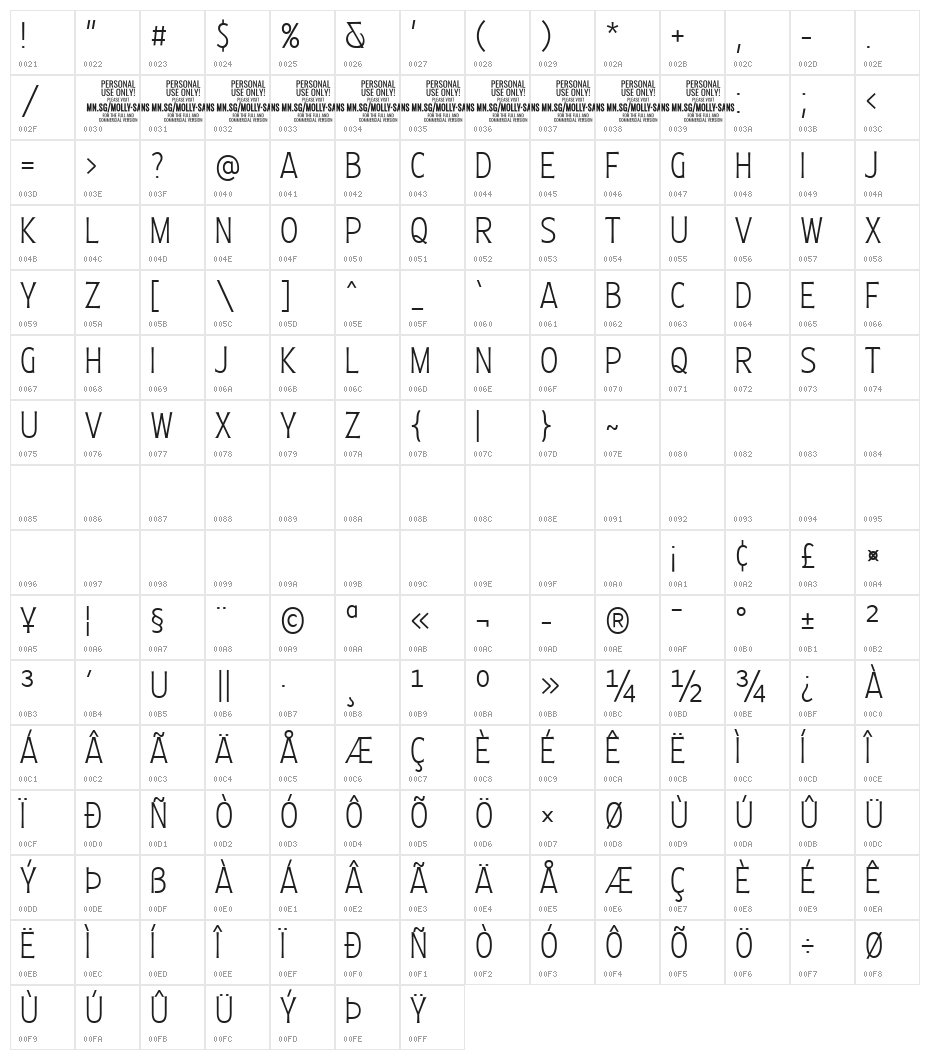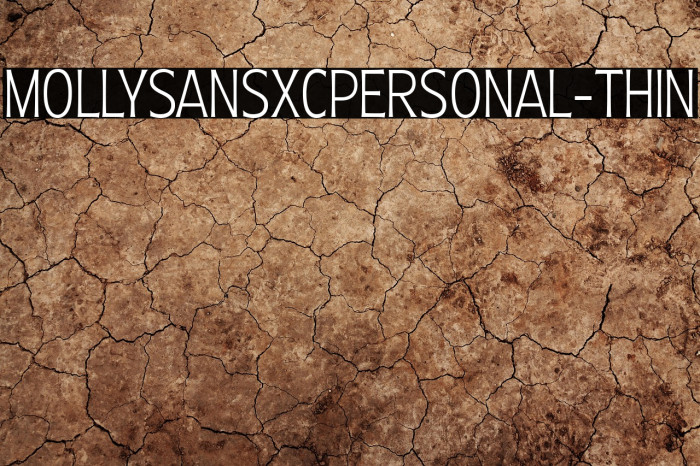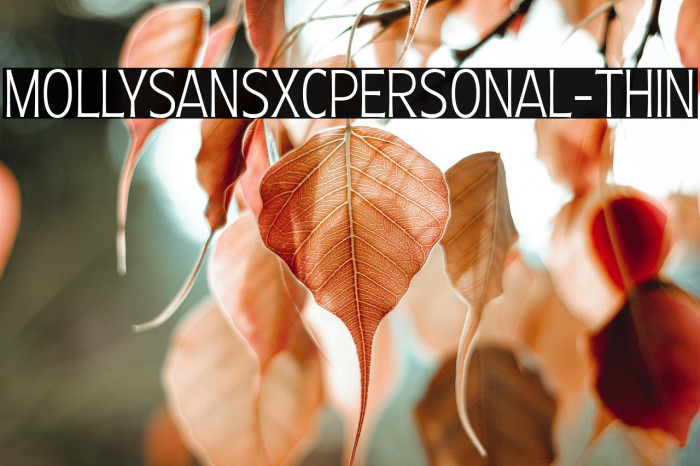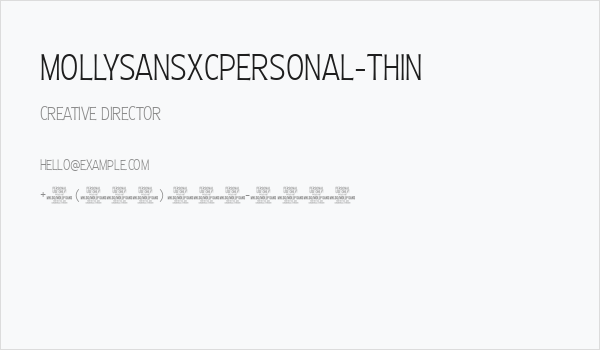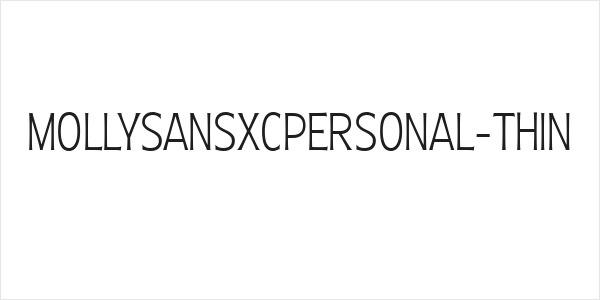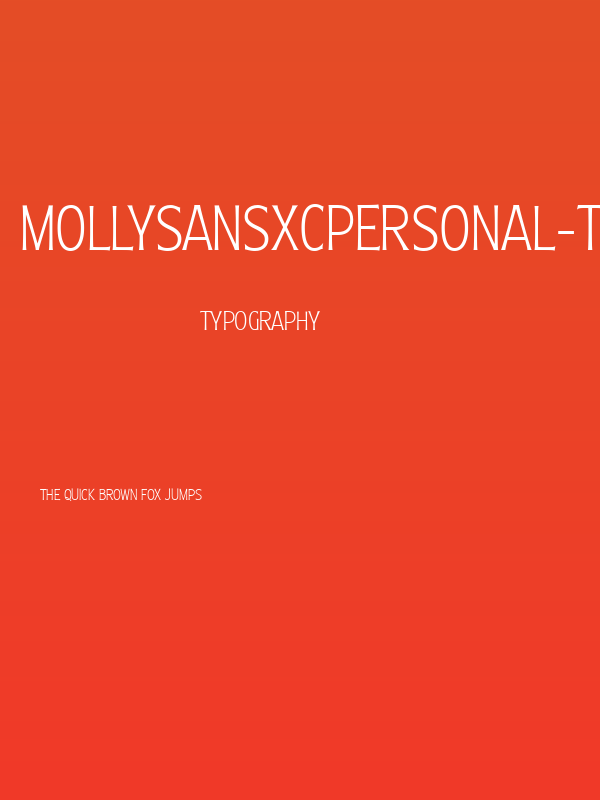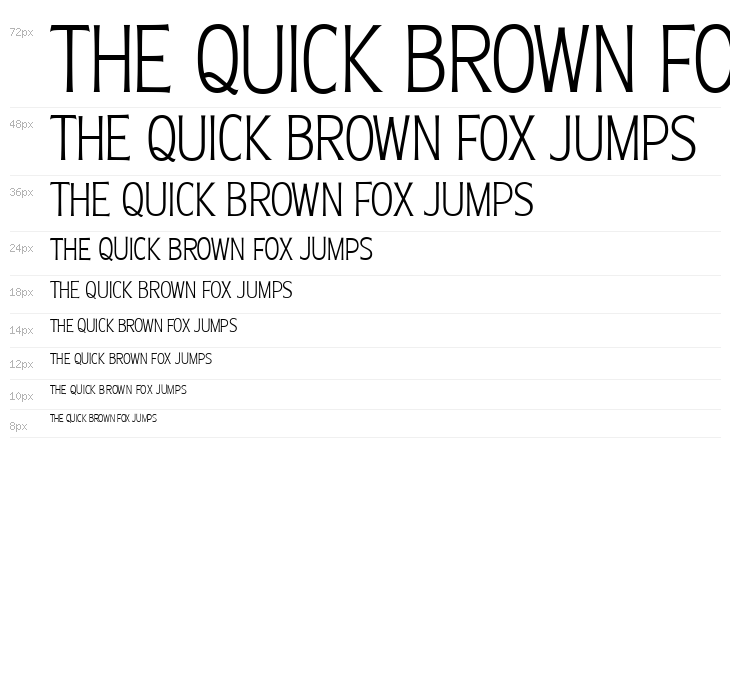
MollySansXCPERSONAL-Thin Font
MollySansXCPERSONAL-Thin Description
This font features a clean and modern sans-serif style with a thin weight, offering a sleek and elegant appearance. The characters are tall and narrow, providing a condensed look that is both stylish and functional. The uppercase and lowercase letters maintain a consistent height, contributing to a uniform and orderly presentation. The numerals and special characters are designed to match the overall aesthetic, ensuring a cohesive look across all text elements. This font is ideal for projects that require a contemporary and minimalist touch, such as branding, editorial design, and digital interfaces.
| Proposed Projects | Ideal for branding, editorial design, digital interfaces, and minimalist projects. |